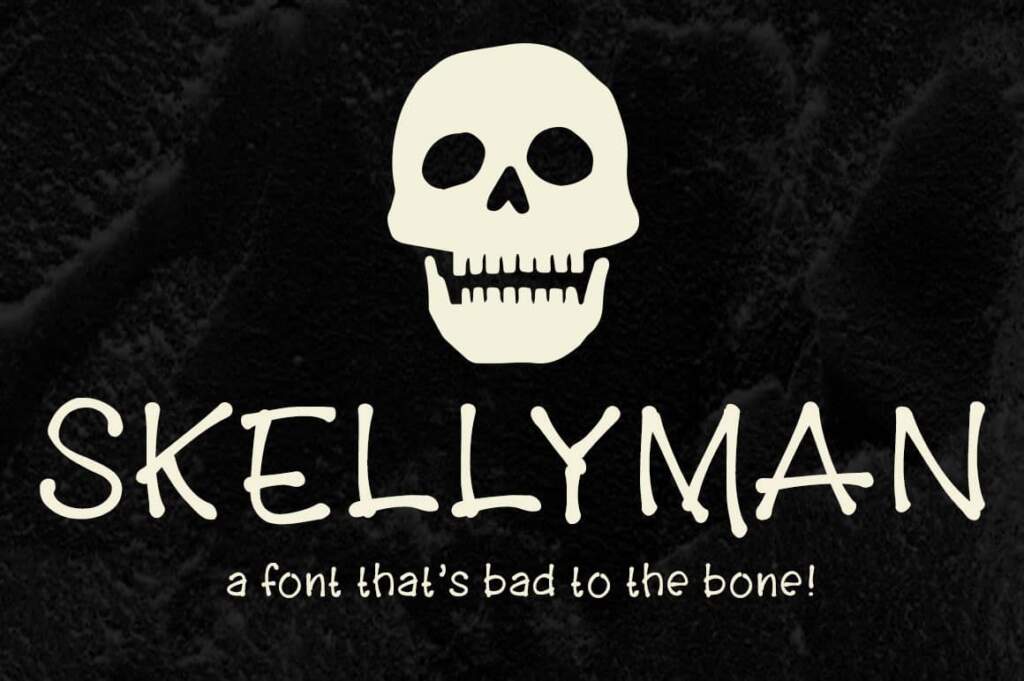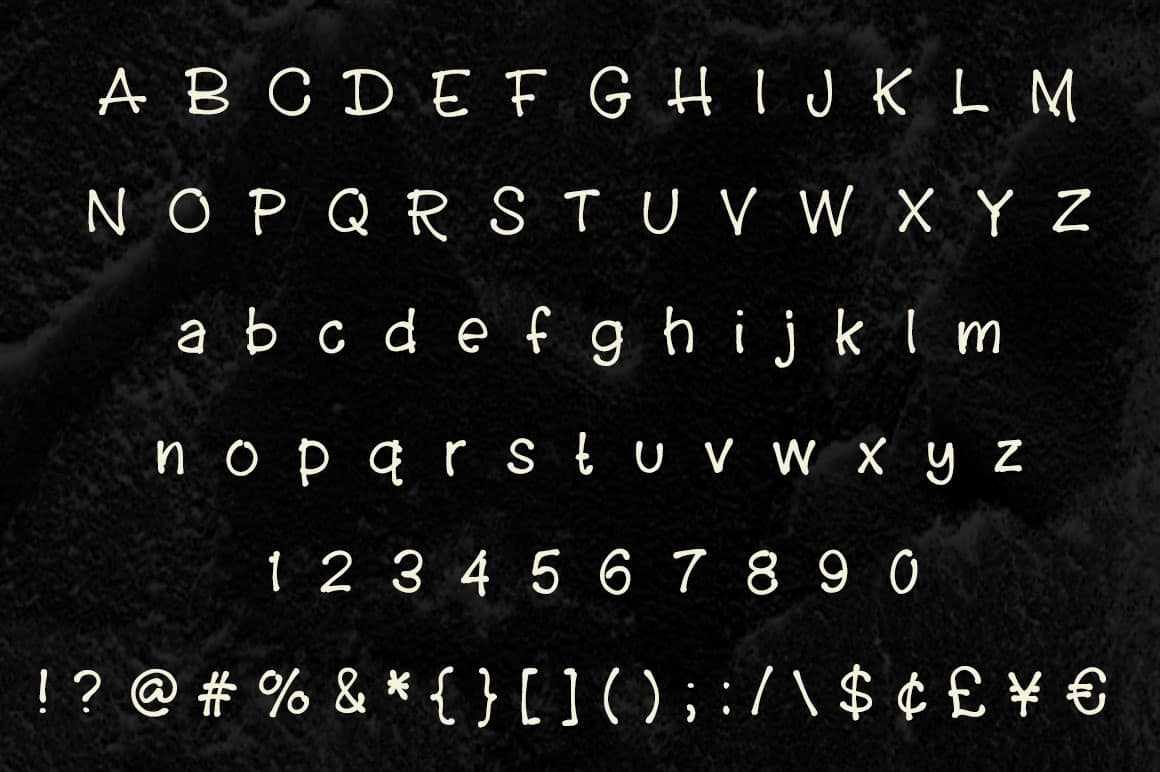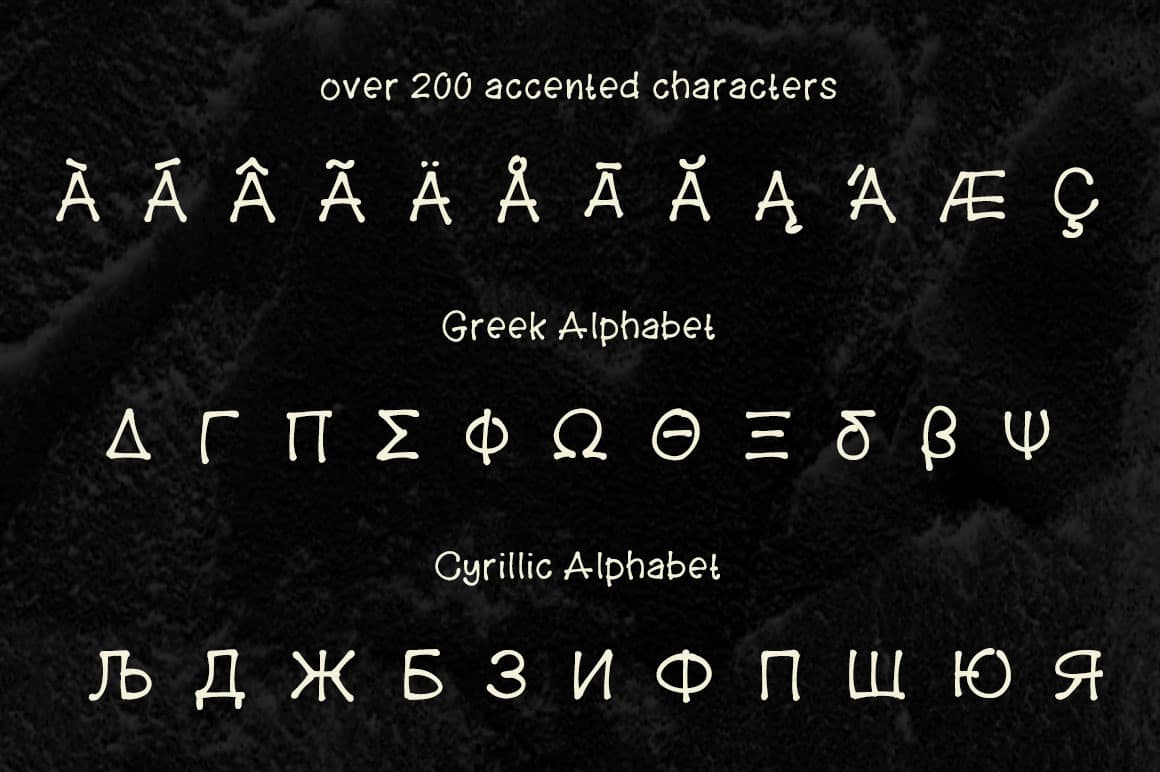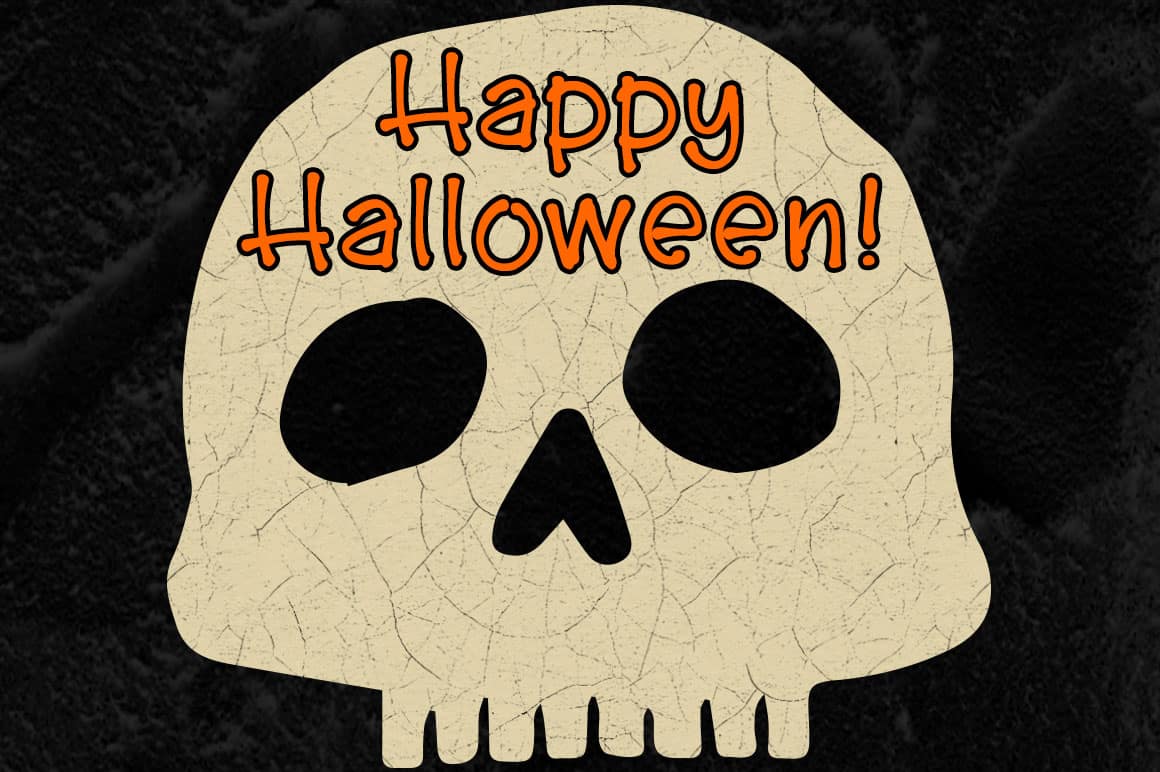
Skellyman
A free font made of bones for Halloween. Or for pirates. Or … biology teachers.
It’s been a while since I’ve put a free font out there! Just in time for Halloween, here’s Skellyman (named after a mangling of “skeleton” used in my favorite video game, Borderlands 2).
It may be free, but that doesn’t mean it’s light. Skellyman contains over 660 characters, including over 200 accented characters, and full alphabets in Latin, Greek, and Cyrillic. Make no bones about it — this is a meaty font!
But this isn’t just for Halloween — you could also use this font for any and all pirate-based projects. Because pirates are awesome! It’s also good for biology teachers, natural history museums, butchers . . . really, anyone who likes bones!